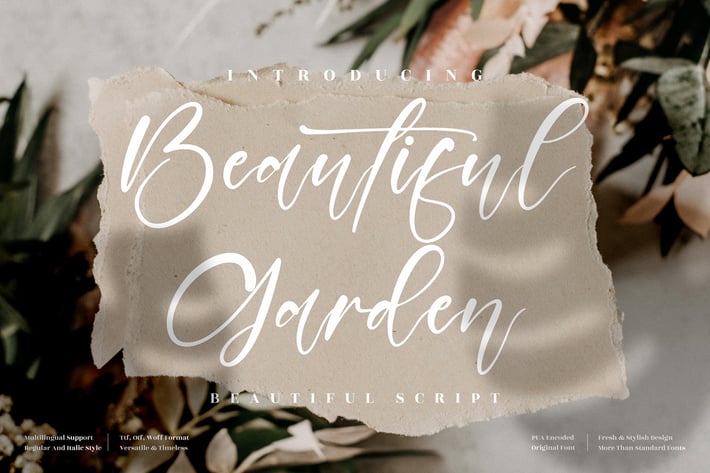
Beautiful Garden Script Font
Beautiful Garden is an elegant and timeless handwritten script font that exudes natural charm and sophistication. With its delicate strokes and graceful curves, this typeface brings a touch of romance and luxury to every design. Perfectly suited for projects that require beauty, femininity, and refined calligraphic style.
Elegant modern script style
Flowing letterforms with realistic handwritten texture
Wedding invitations and stationery
Beauty and fashion branding
Social media posts and lifestyle blogs
Product packaging and cosmetic labels
* Quotes, posters, and editorial designs
Timeless, romantic, and effortlessly beautiful — Beautiful Garden Script adds an enchanting handwritten touch to your creative work.